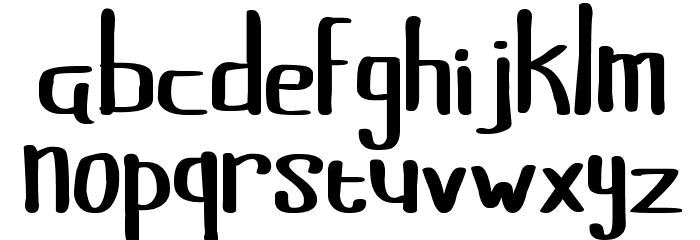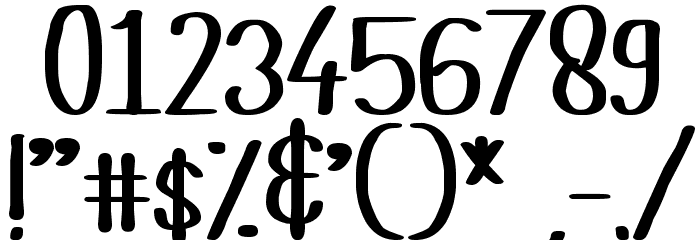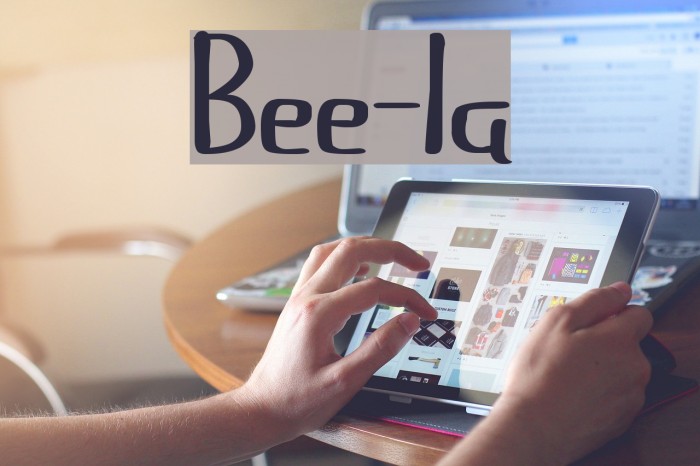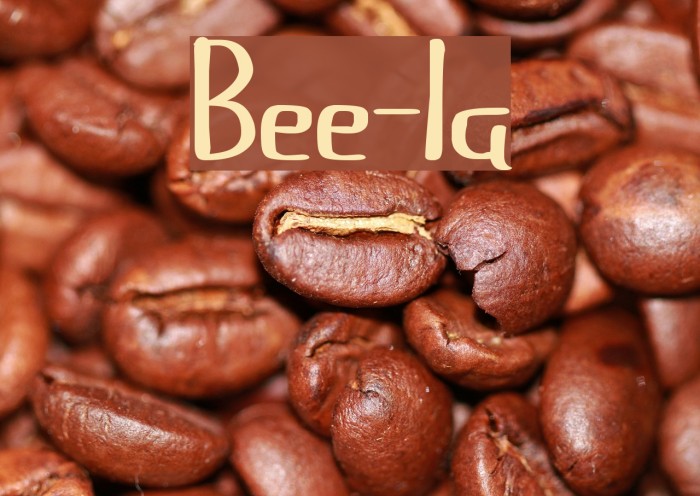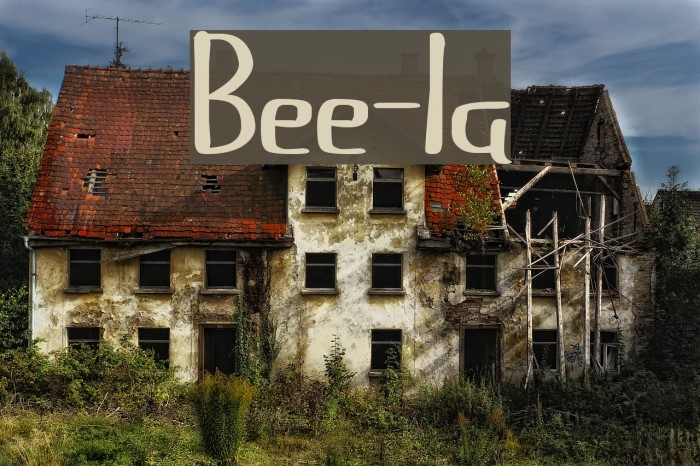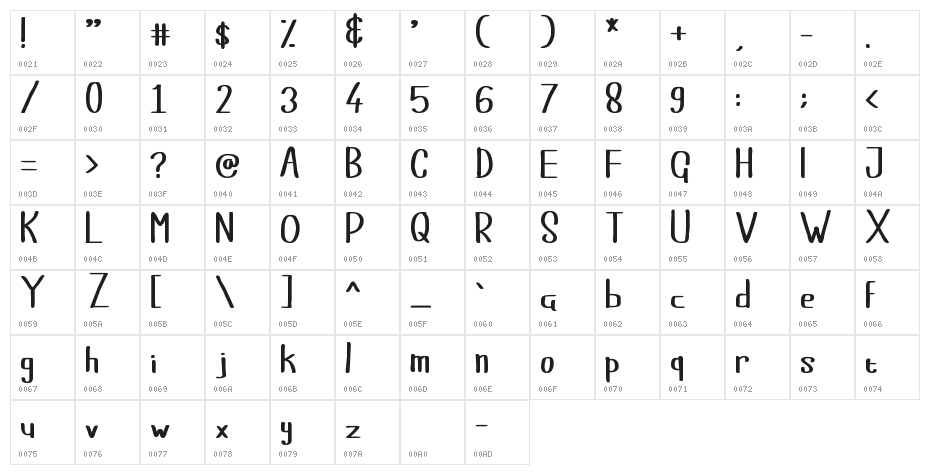
Bee-la Font
This font features a playful and casual handwritten style, characterized by its rounded and slightly irregular letterforms. The uppercase and lowercase letters maintain a consistent flow, with a whimsical touch that adds personality to the text. The numerals and special characters follow the same playful aesthetic, making the font suitable for informal and creative projects. The strokes are moderately thick, providing a bold appearance without being overwhelming. The overall look is friendly and approachable, ideal for designs that aim to convey warmth and creativity.
A playful handwritten font with rounded, whimsical letterforms.
- Proposed Projects: Perfect for children's books, greeting cards, playful branding, and creative social media graphics.
- Overall Style: Casual, Playful
- Use Case: Headlines, Logos, Informal Text